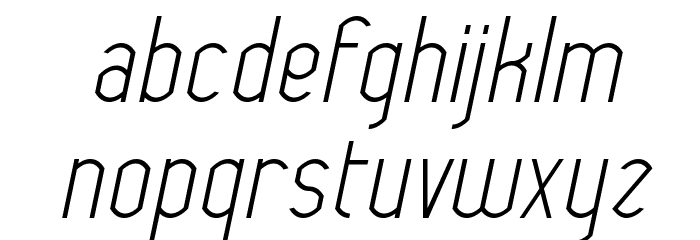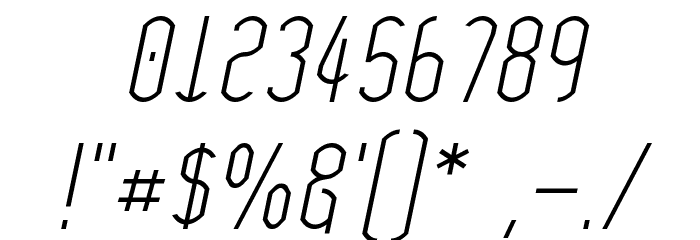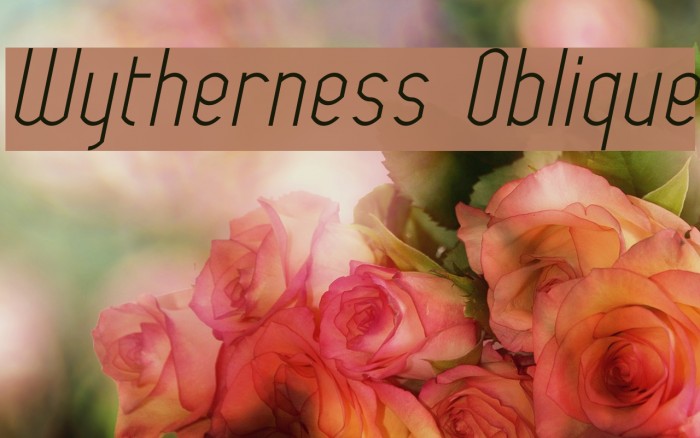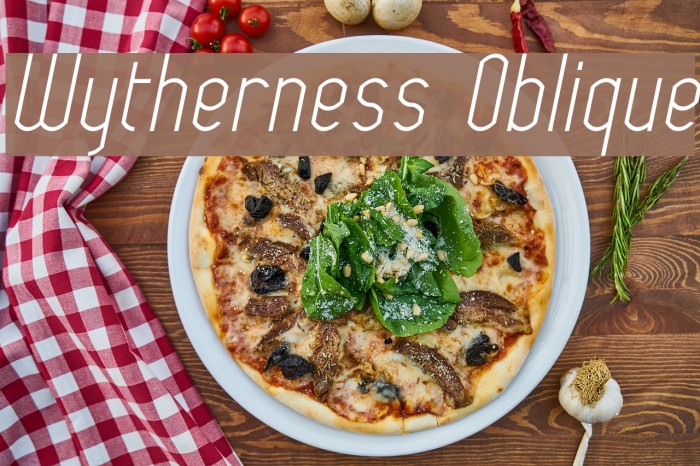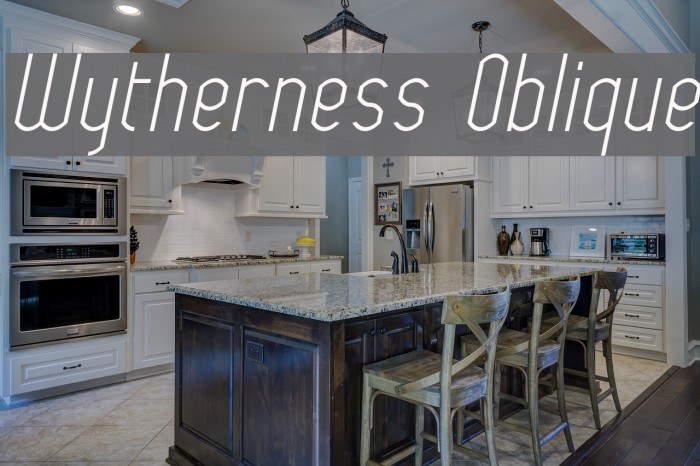
Wytherness Oblique Font
This font features a sleek, oblique style with elongated, narrow characters that convey a sense of motion and modernity. The uppercase and lowercase letters maintain a consistent slant, giving the typeface a dynamic and forward-leaning appearance. The numerals and special characters are designed with the same angular precision, ensuring uniformity across all glyphs. The overall design is clean and minimalistic, with a slight geometric influence that enhances its contemporary feel. This font is well-suited for projects that require a modern and stylish touch, such as branding, advertising, and digital media.
A modern, oblique font with elongated, narrow characters and a dynamic style.
- Proposed Projects: Ideal for branding, advertising, digital media, and any project requiring a modern, stylish touch.
- Use Case: Headlines, Logos, Branding